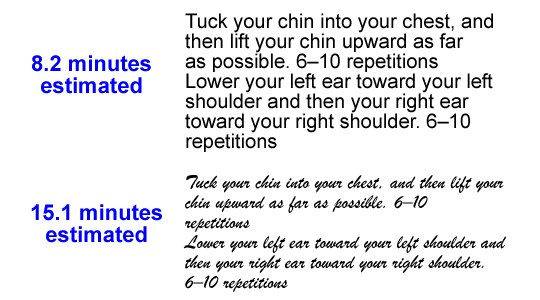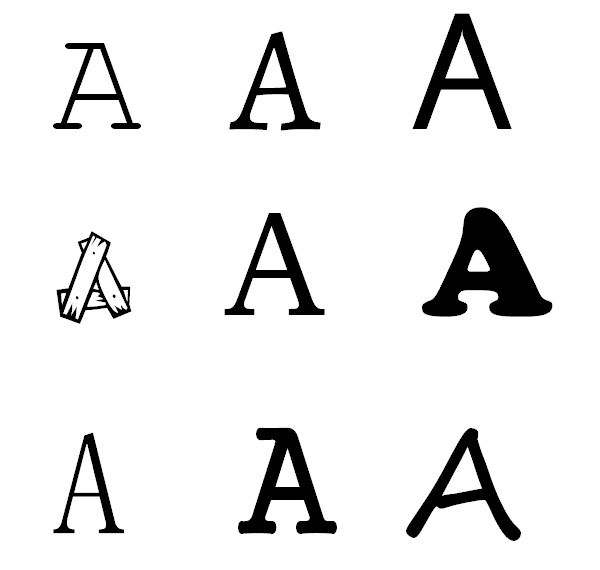
15. Pattern Recognition Helps People Identify Letters in Different Fonts
• There's no difference in comprehension, reading speed, or preference between serif and sans serif fonts.
• People identify letters through pattern recognition. We don't memorize a version of every letter - we know the pattern of what it looks like.
• Font choice is not critical to readability as long as it is not so decorative that readers cannot easily recognize the patterns of the letters.
• Fonts affect the interpretation of text. In a study, the task was perceived as easier if the instructions were in an easy-to-read font. The task itself was perceived as harder to do if instructions were given in an overly decorative font.